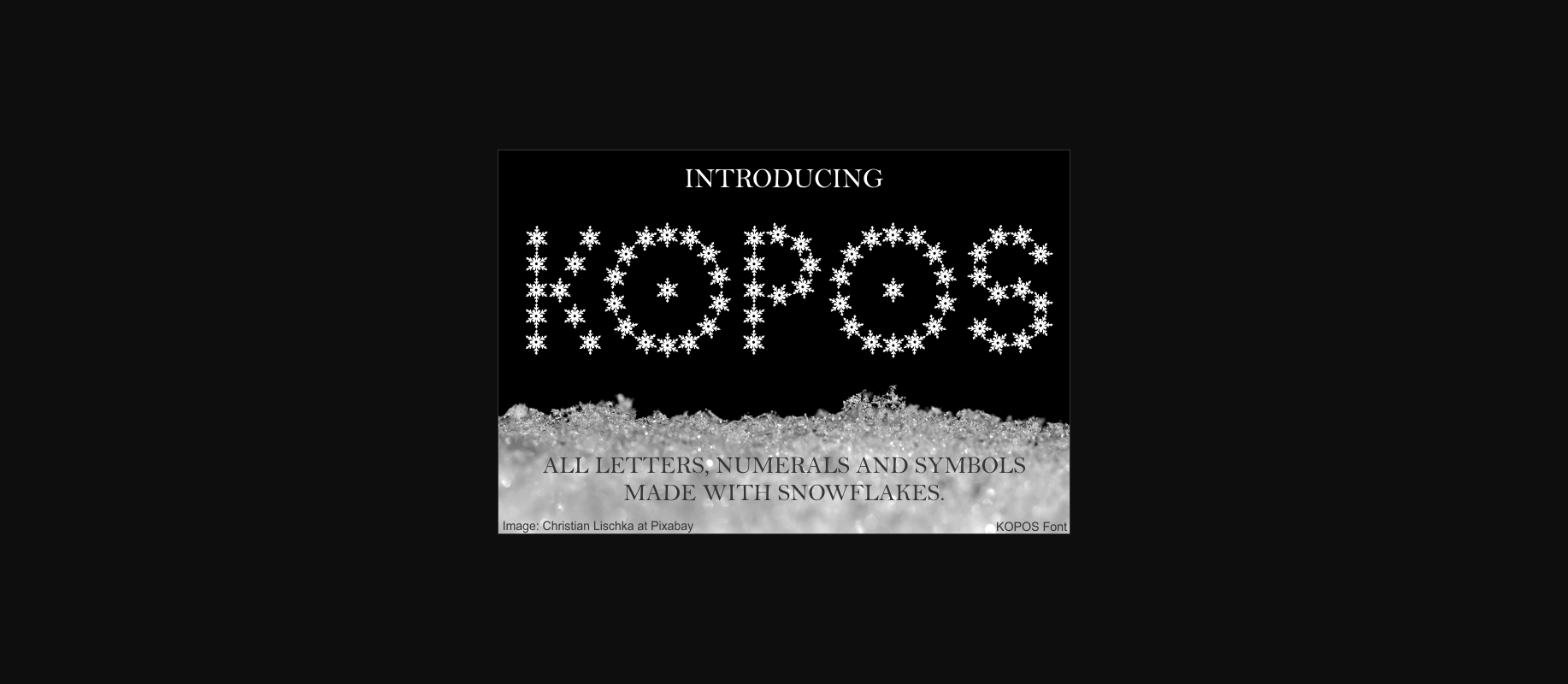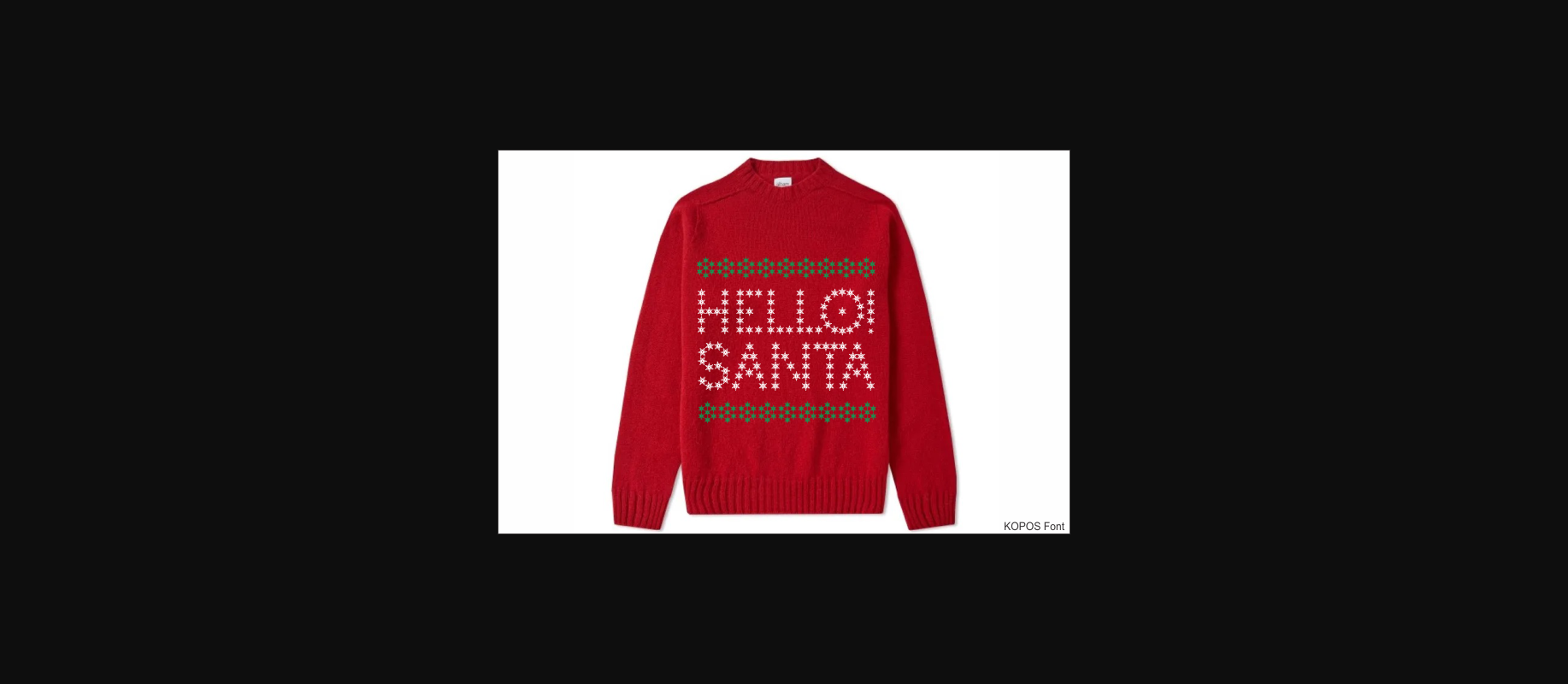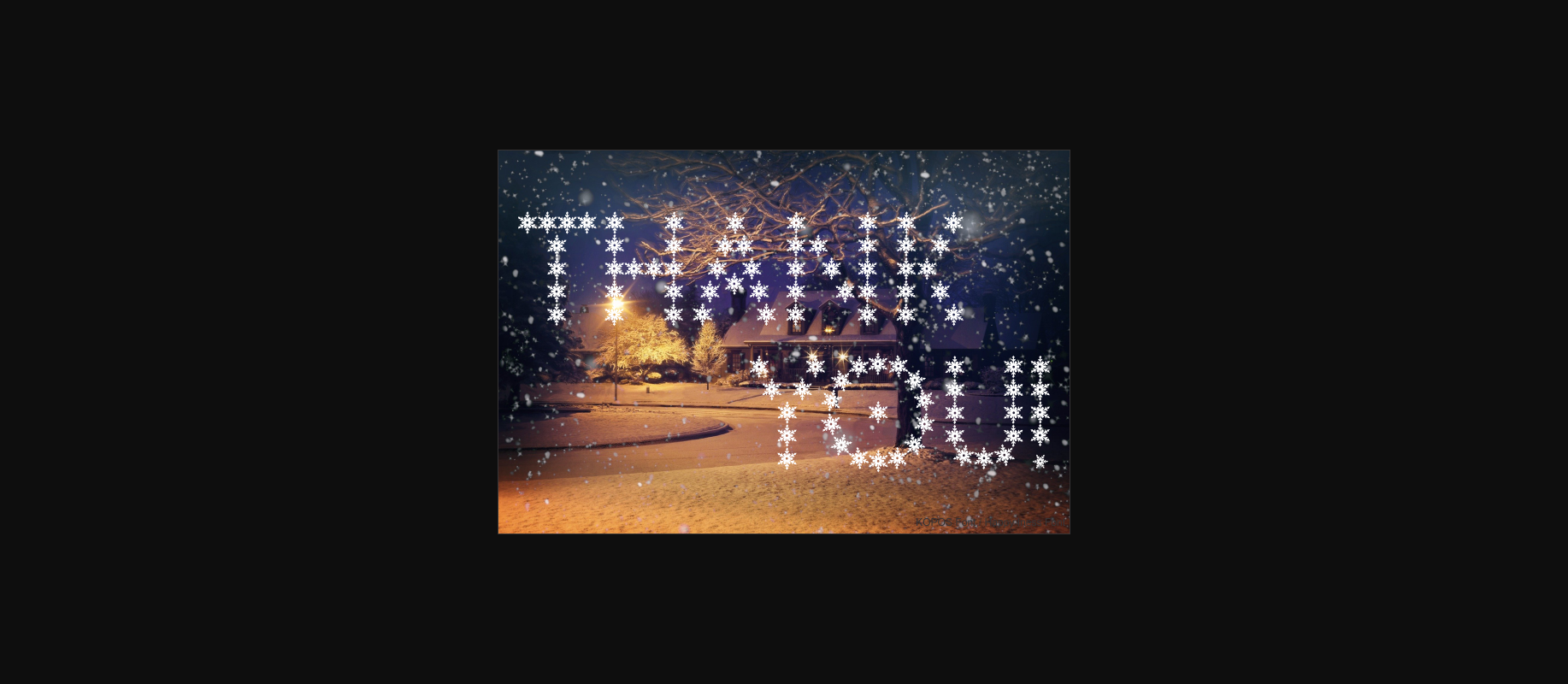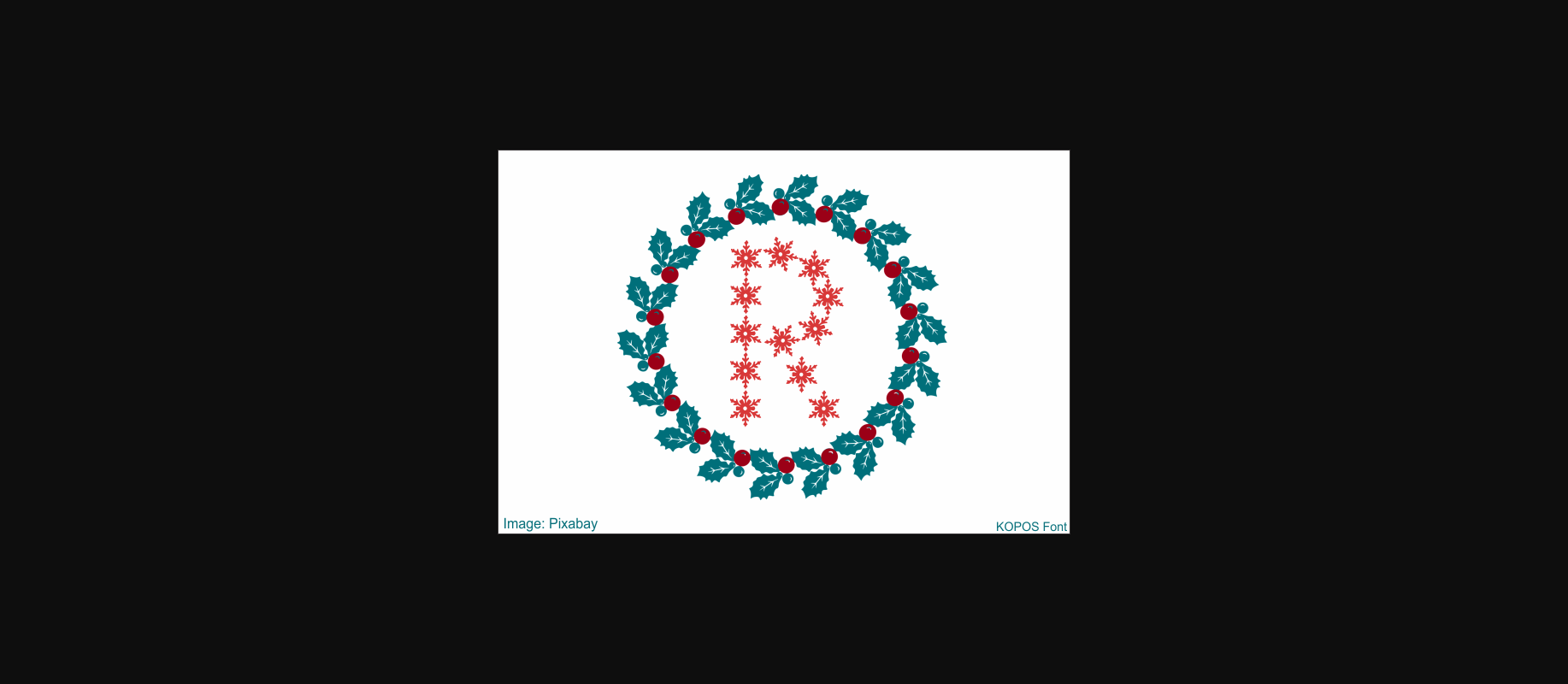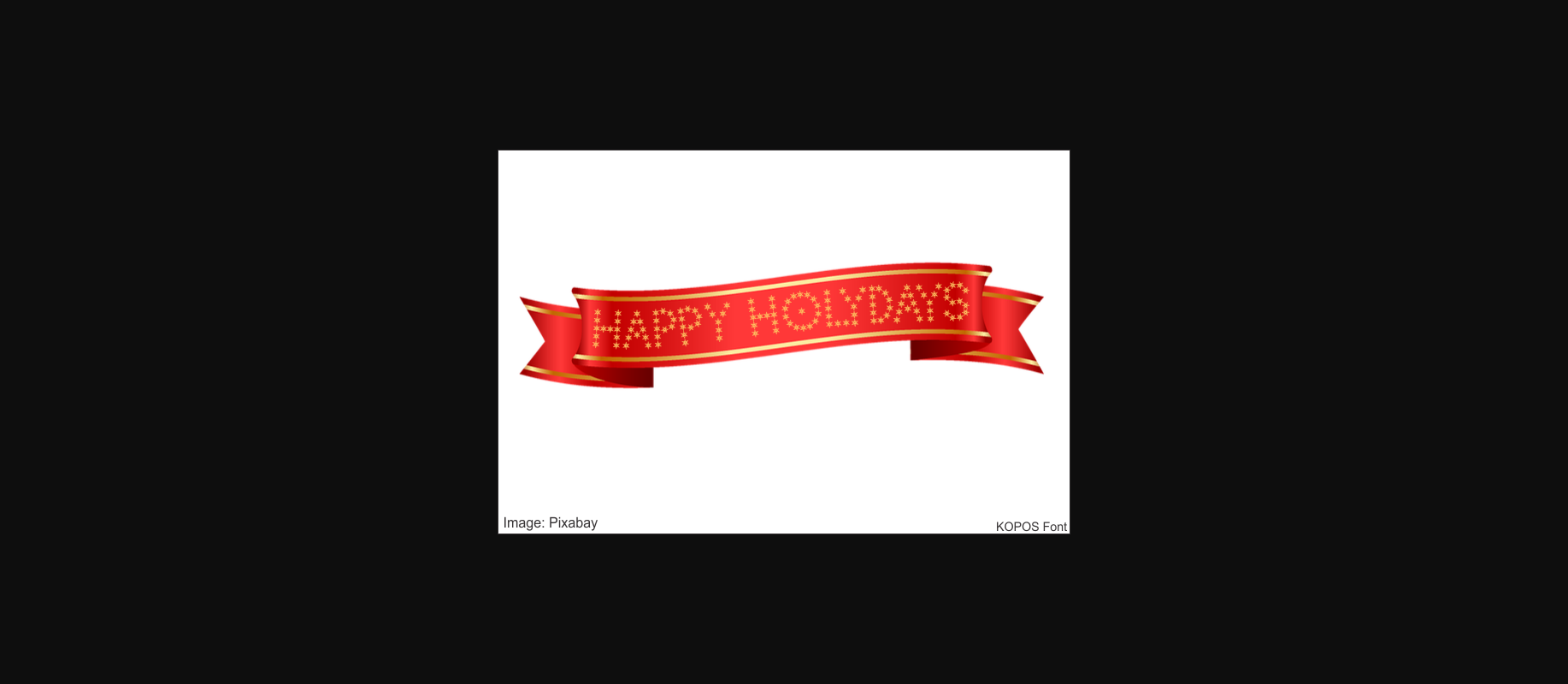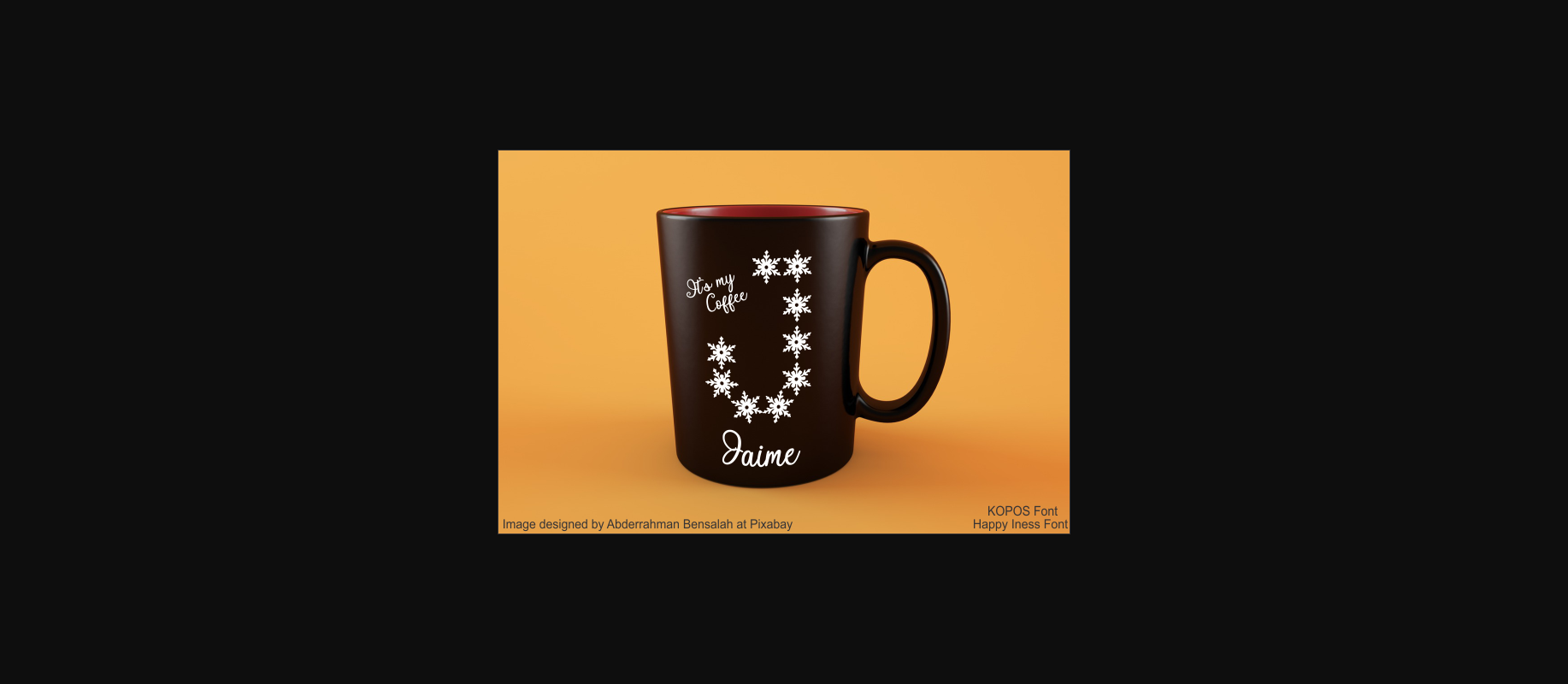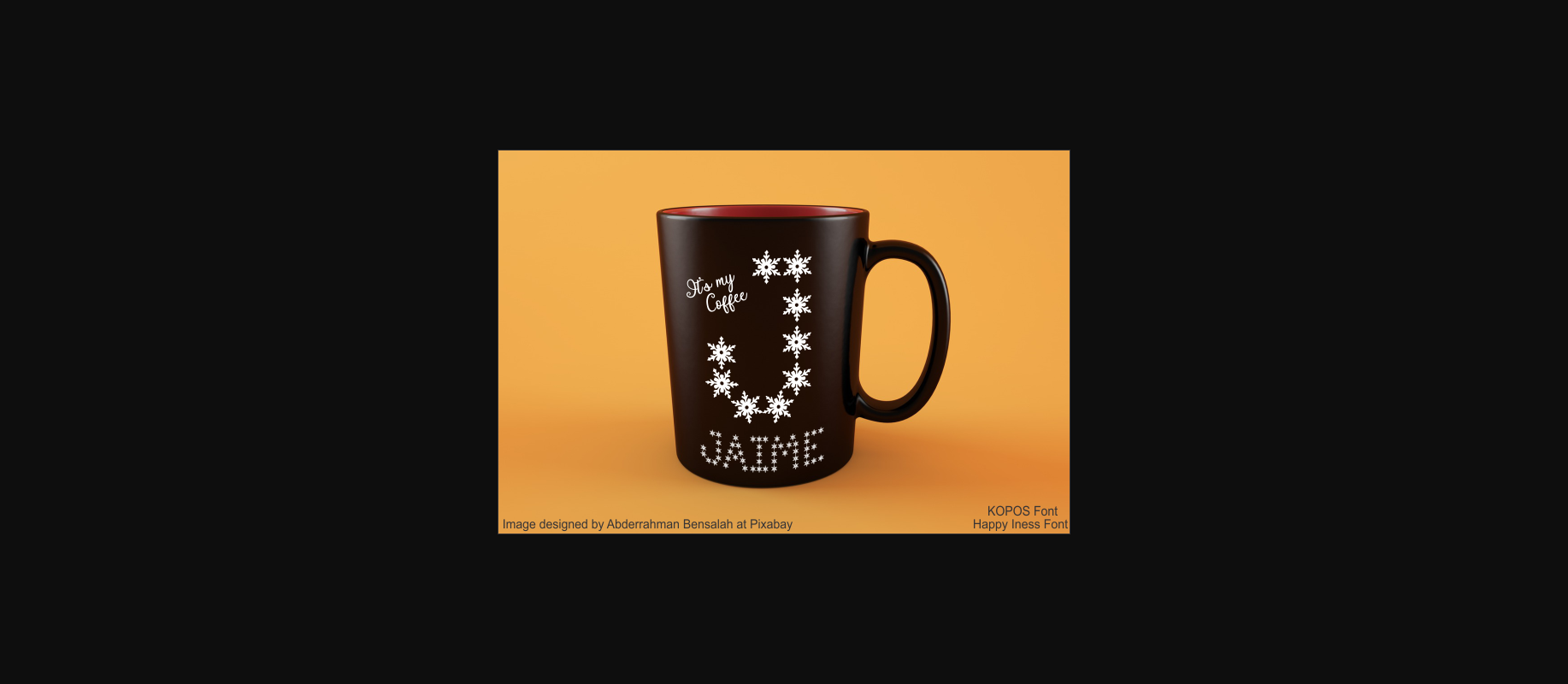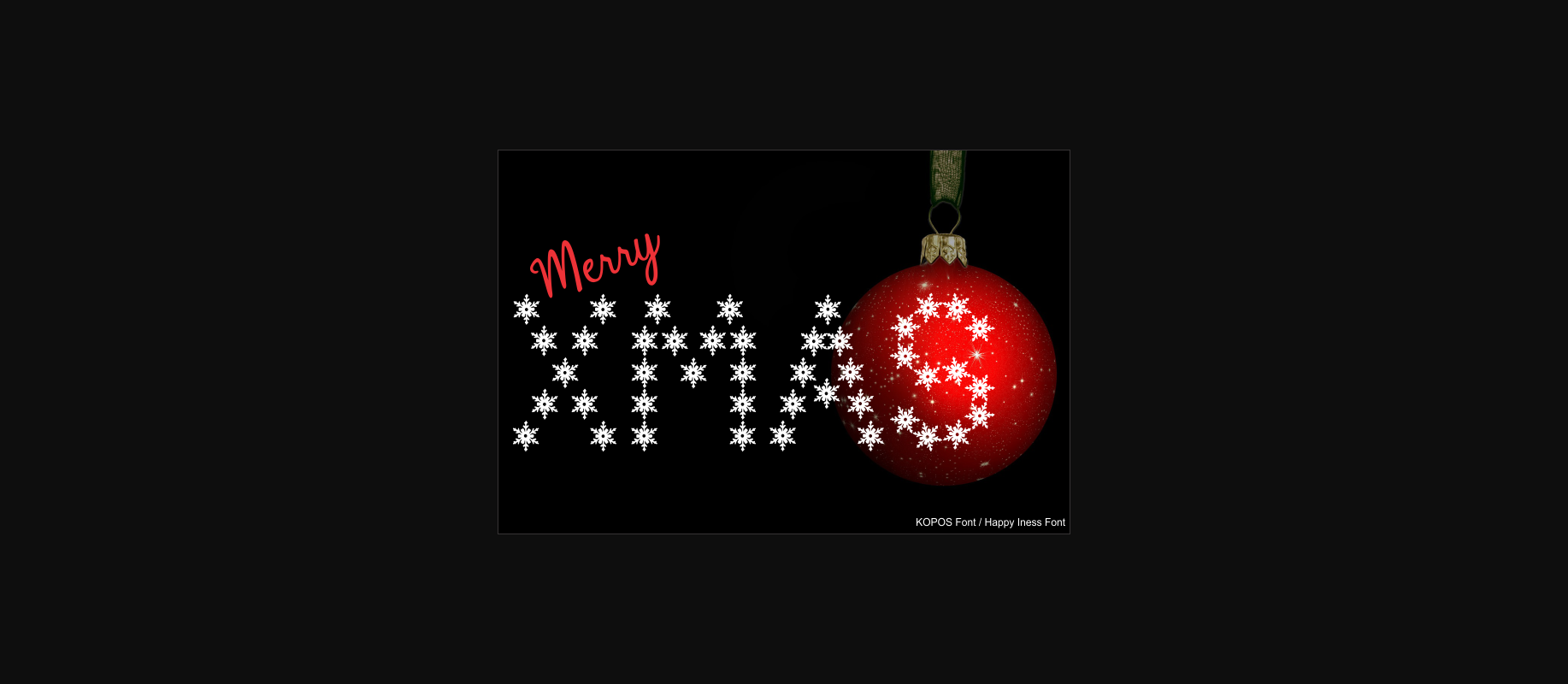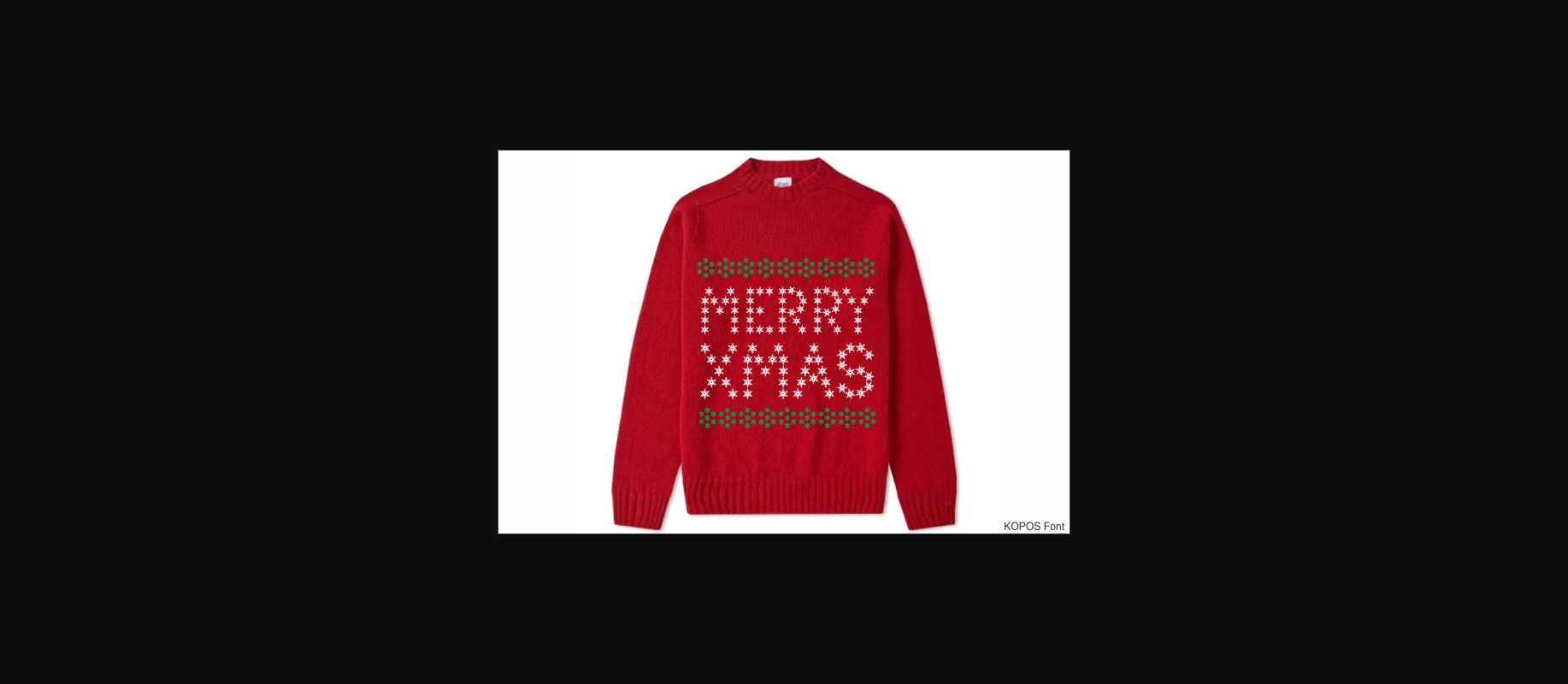
Kopos is an incredibly sweet and unique decorative font, featuring characters made entirely out of snowflakes. Whether you’re using it for crafting, digital designing, presentations or greeting cards making, it’s perfect!